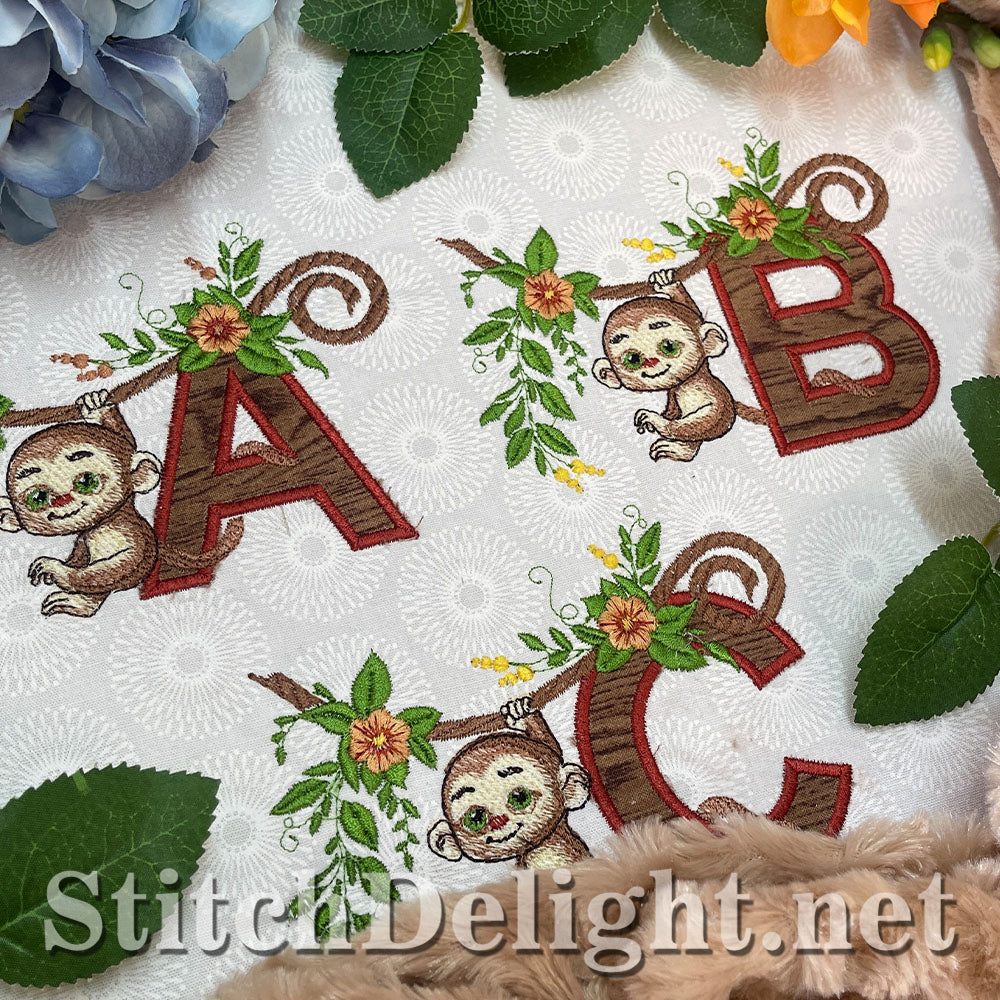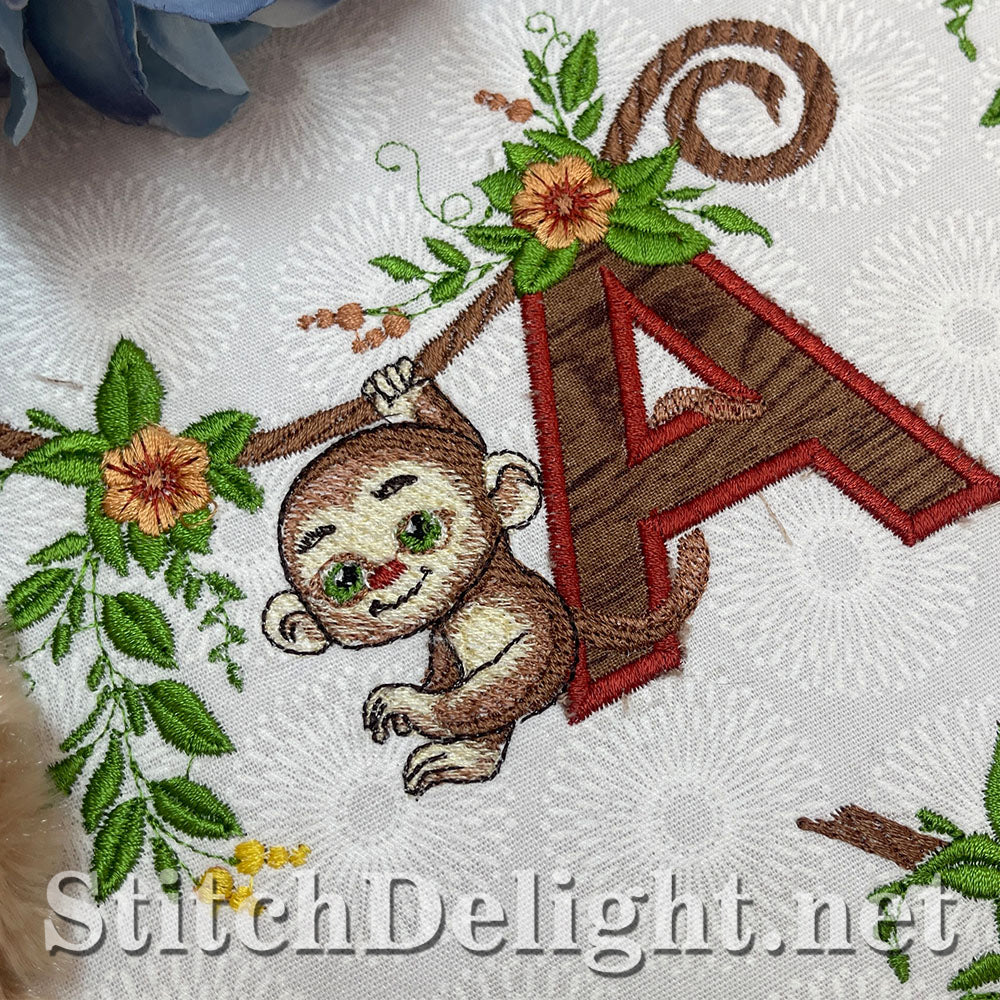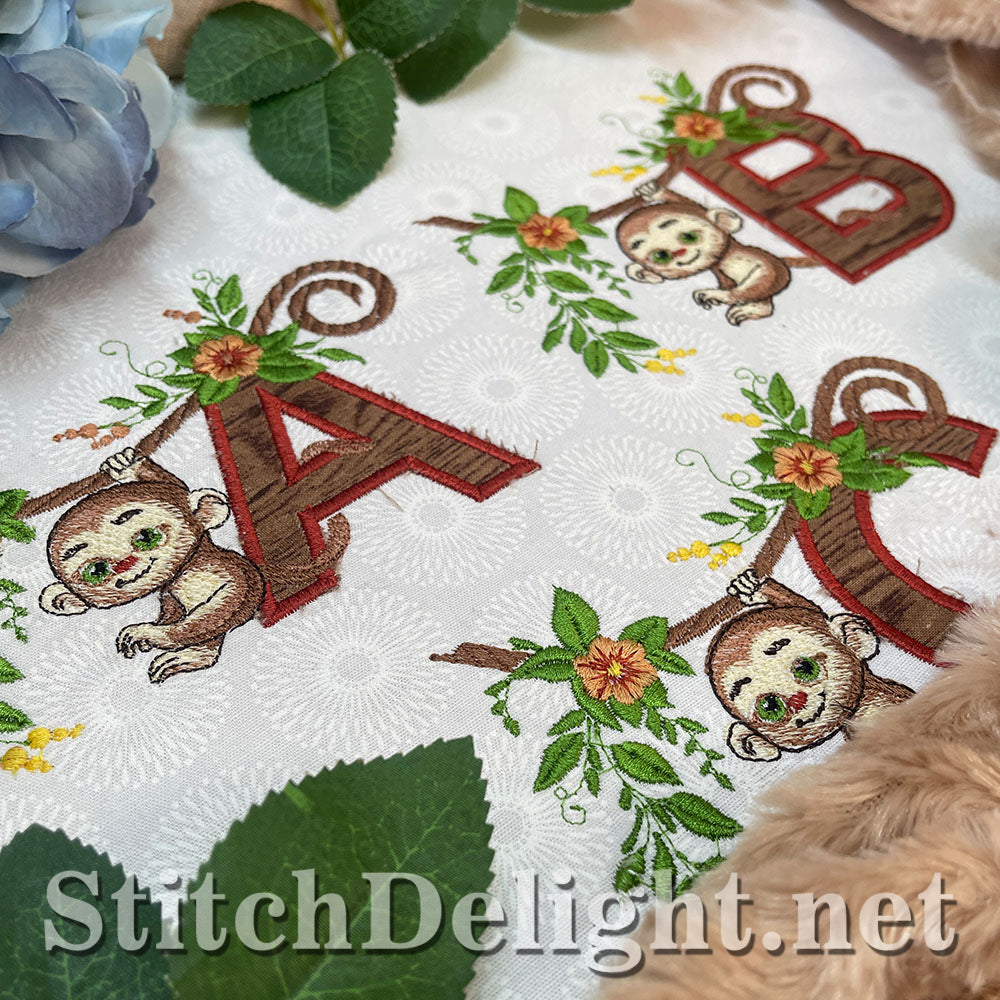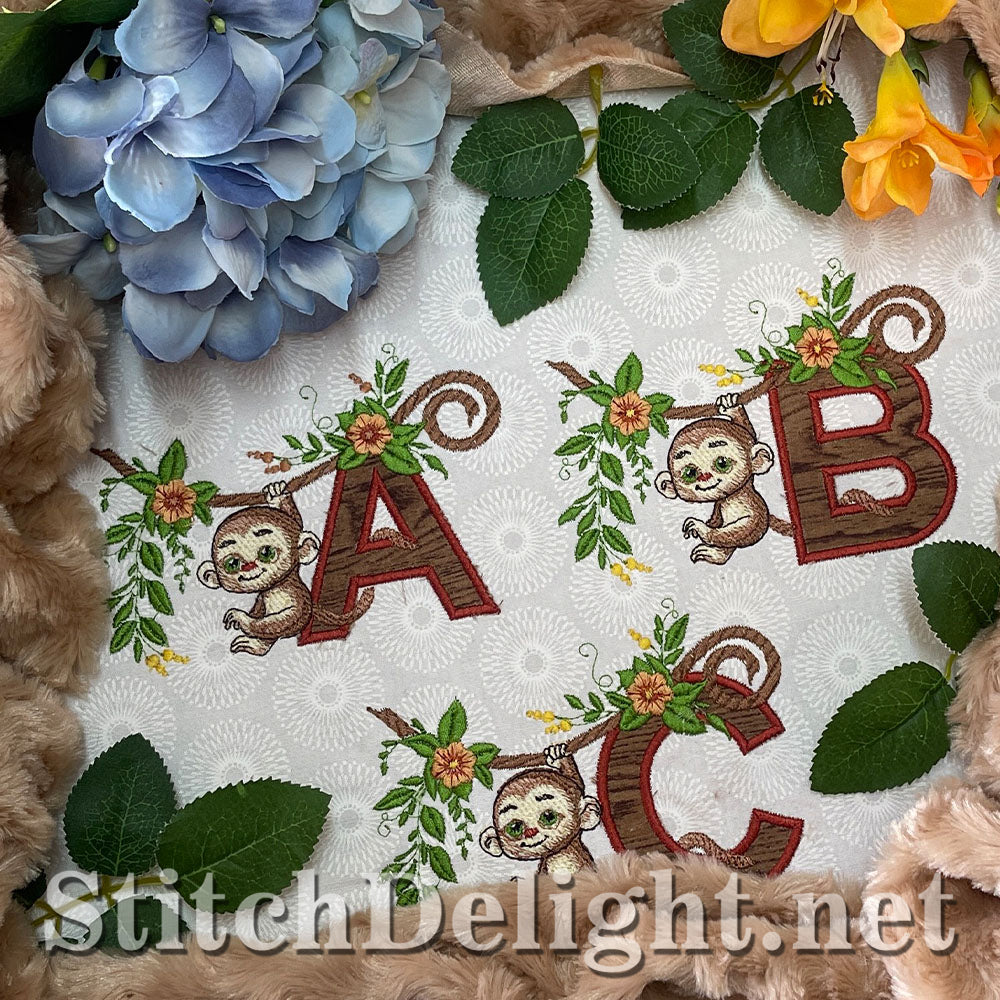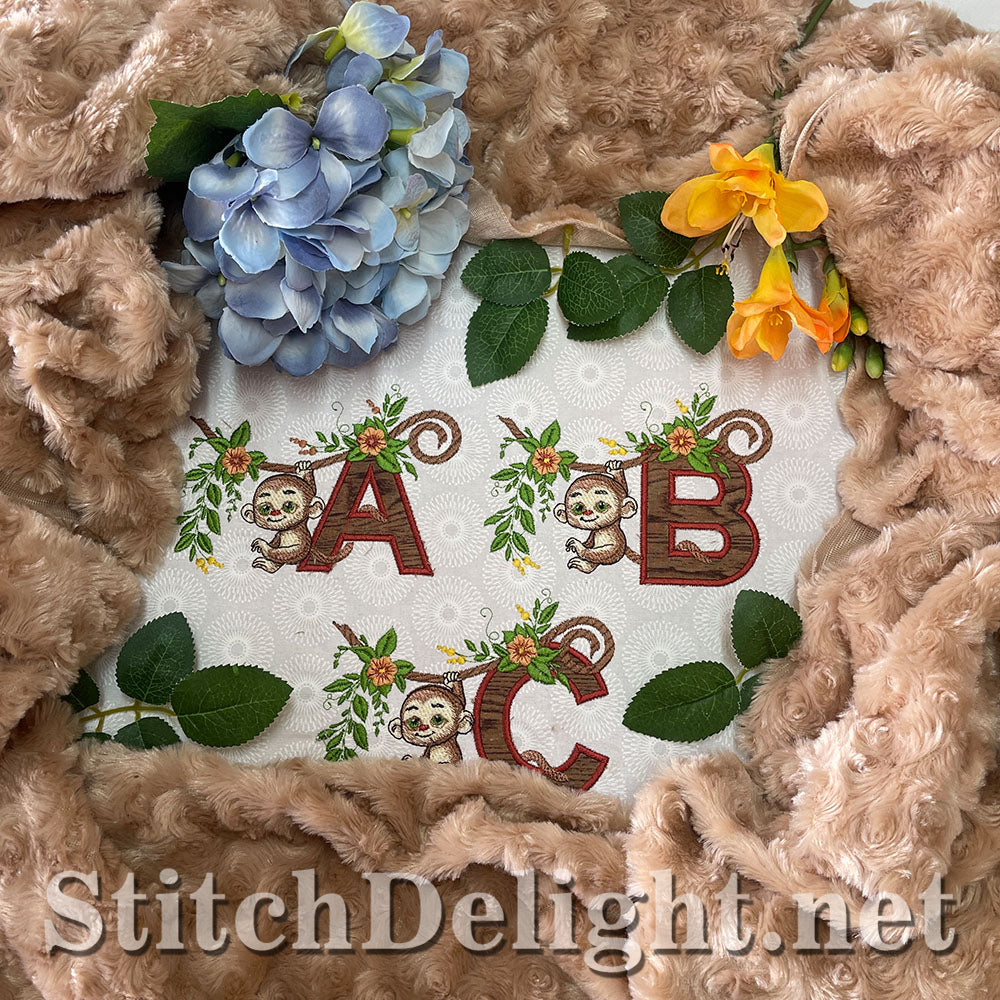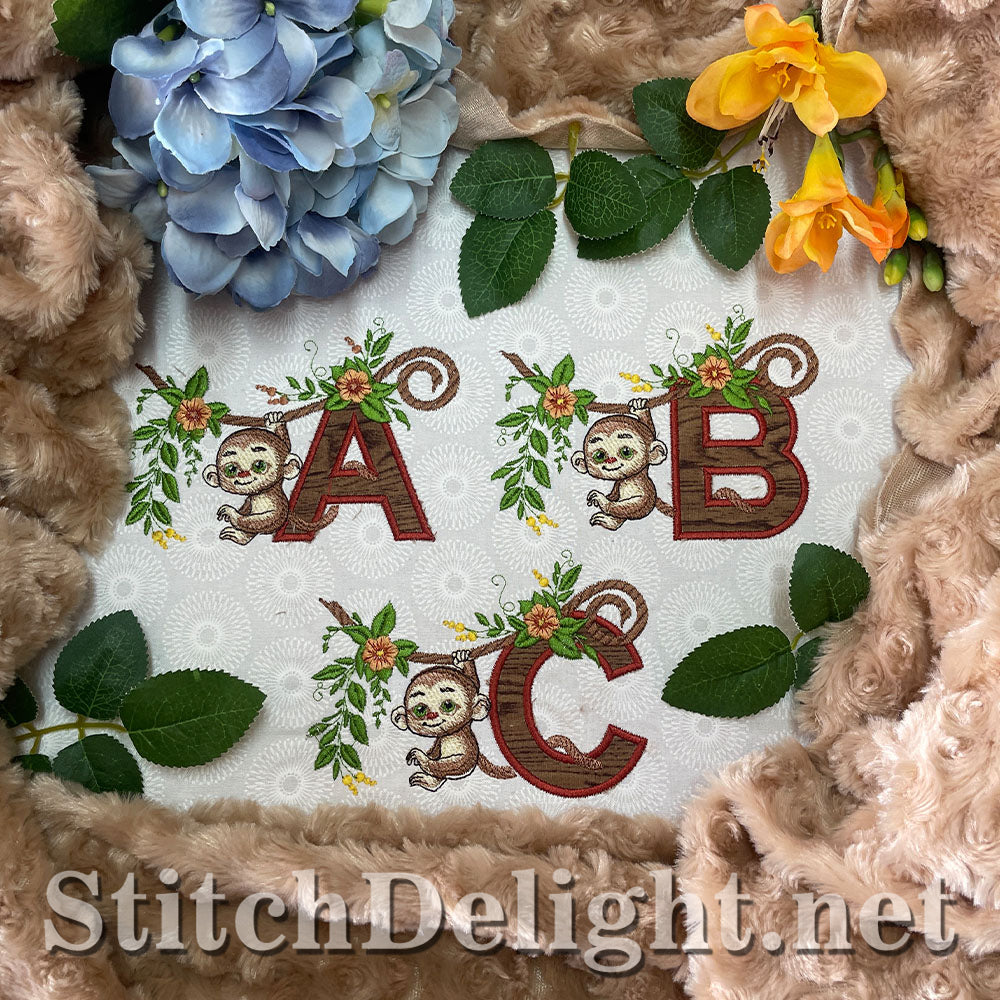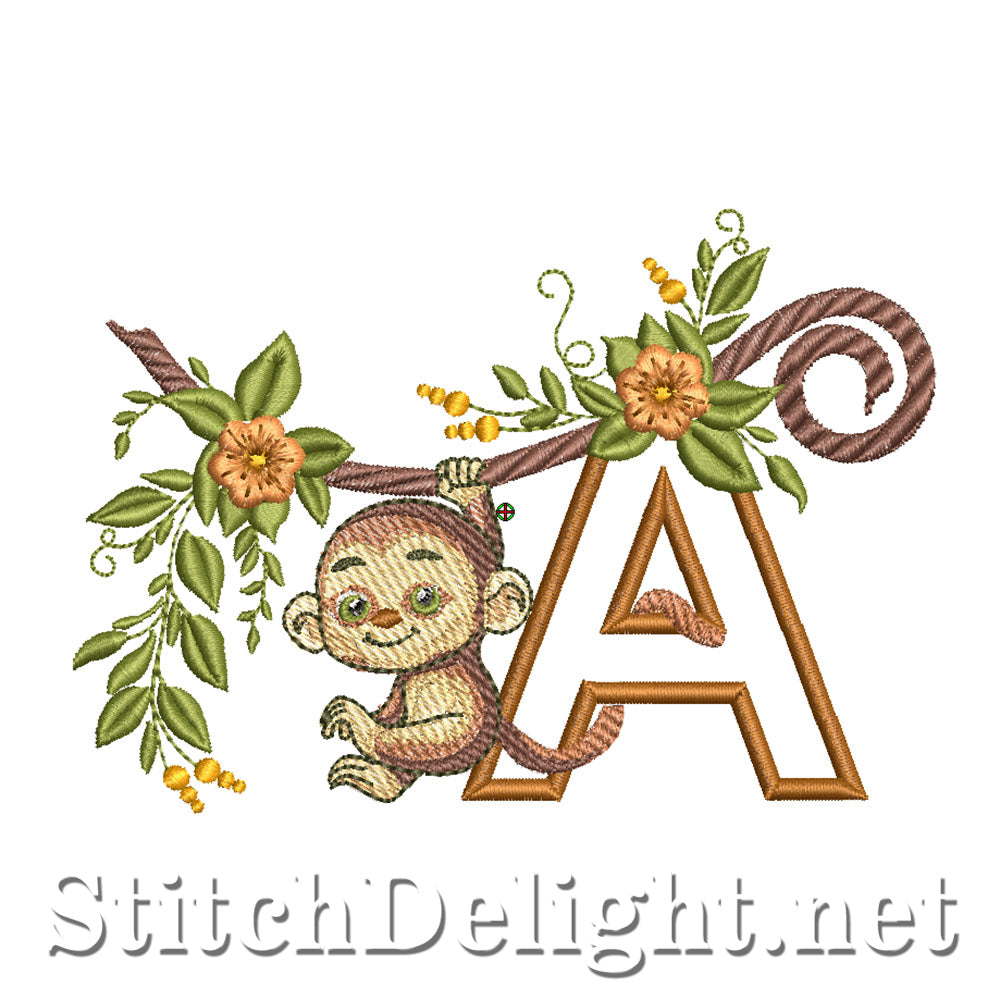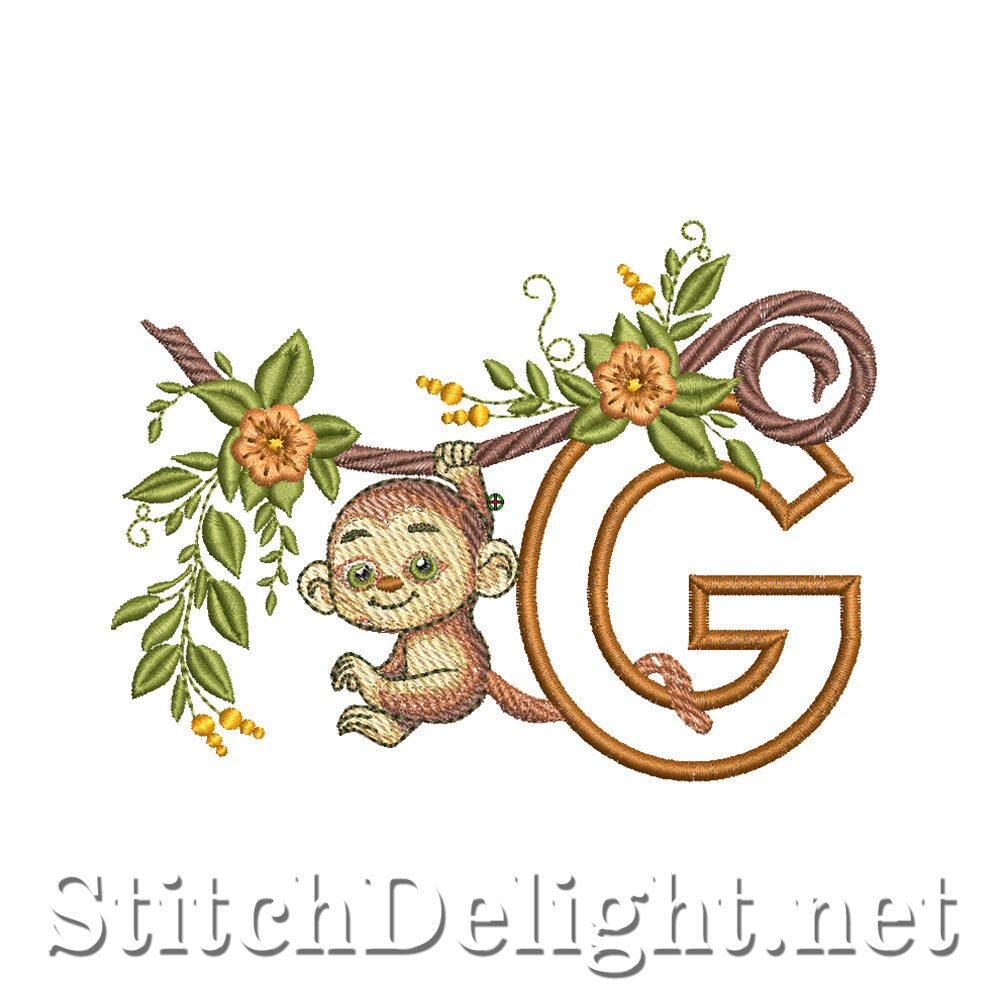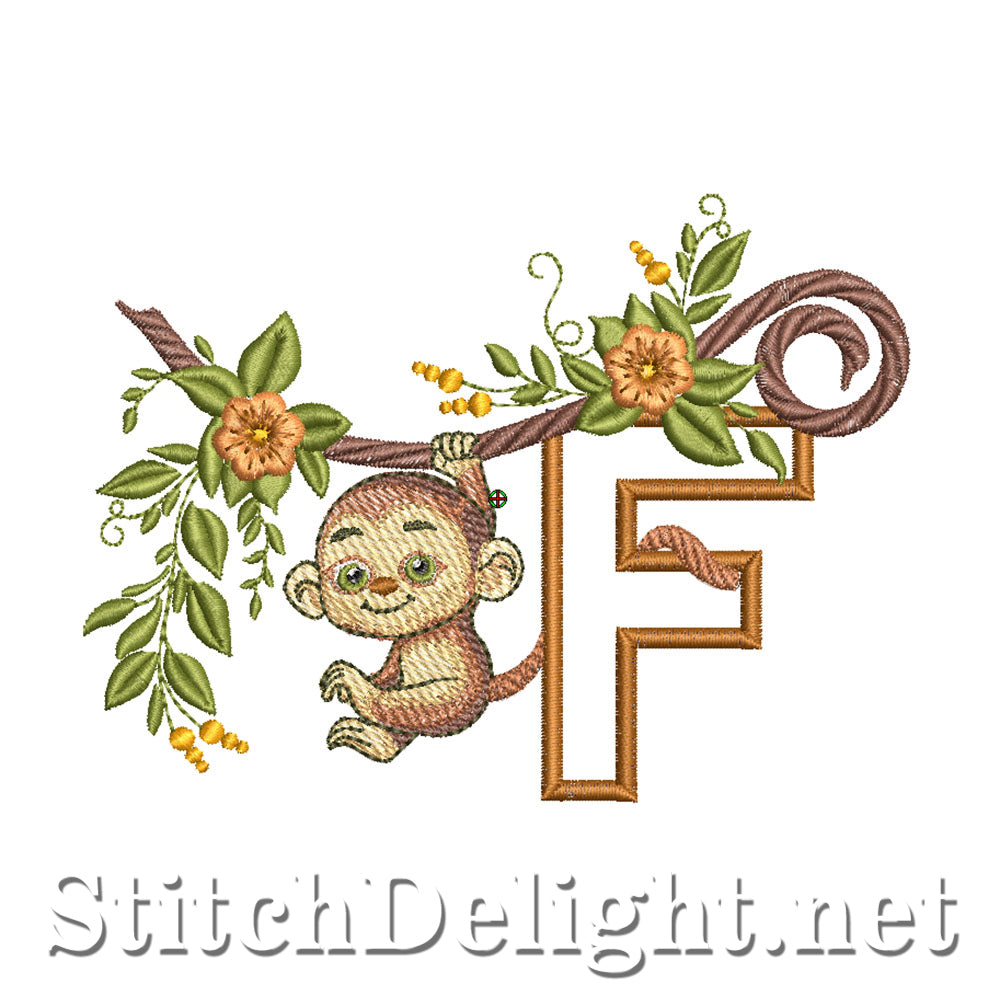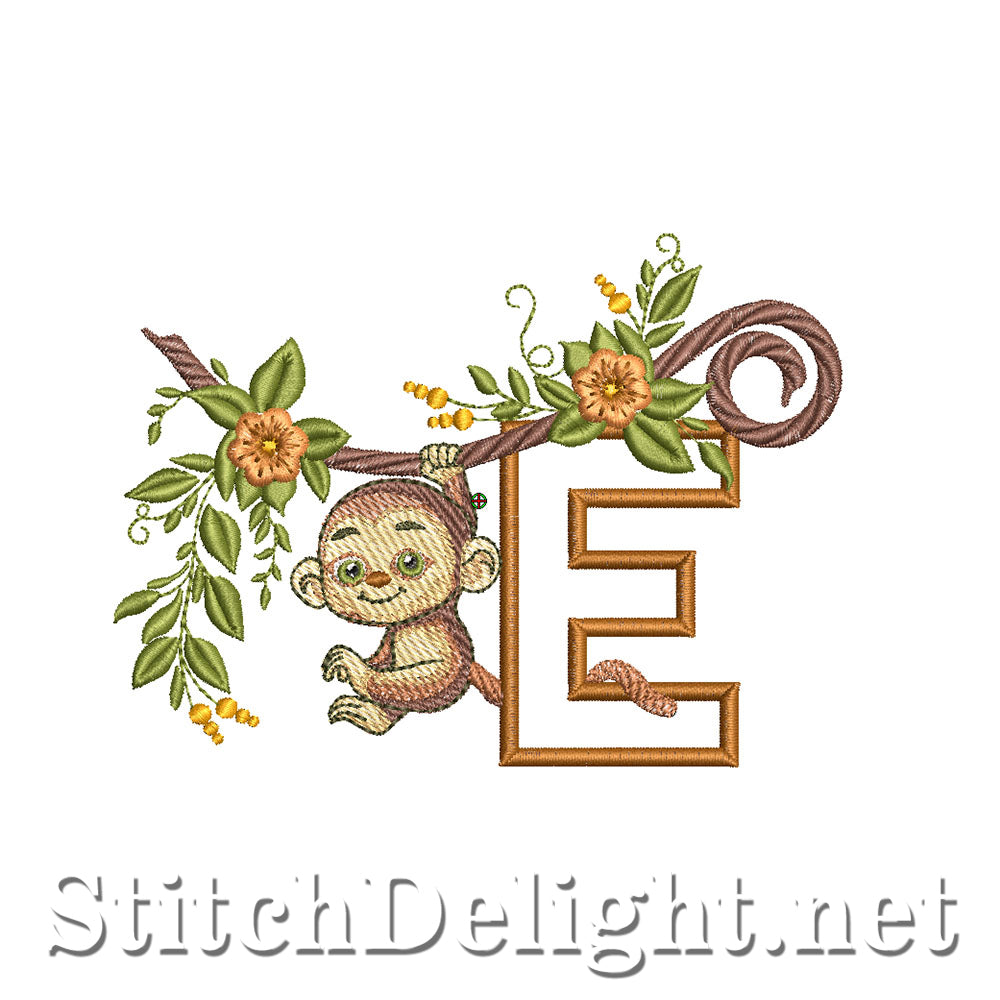
We all enjoy a touch of comedic chaos in our lives, and what better way to capture this than with a monkey in action, immersed in playful antics.
These charming creatures never fail to bring a smile, reflecting a bit of our own playful spirit. Add a splash of fun to your projects with this font—designed to shine with its lively character.